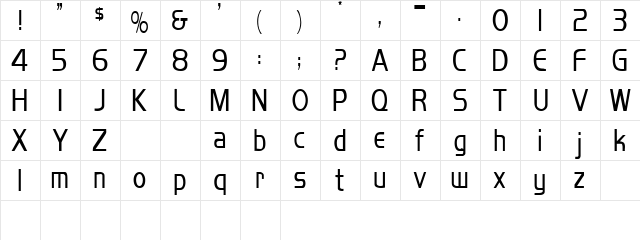
MikityCondensed Regular Font Preview
MikityCondensed Regular
Design Context for MikityCondensed Typeface
MikityCondensed takes a measured approach to typography — its balanced proportions and neutral character make it a reliable workhorse for both digital and print work. The condensed width makes it efficient for tight spaces without sacrificing legibility.